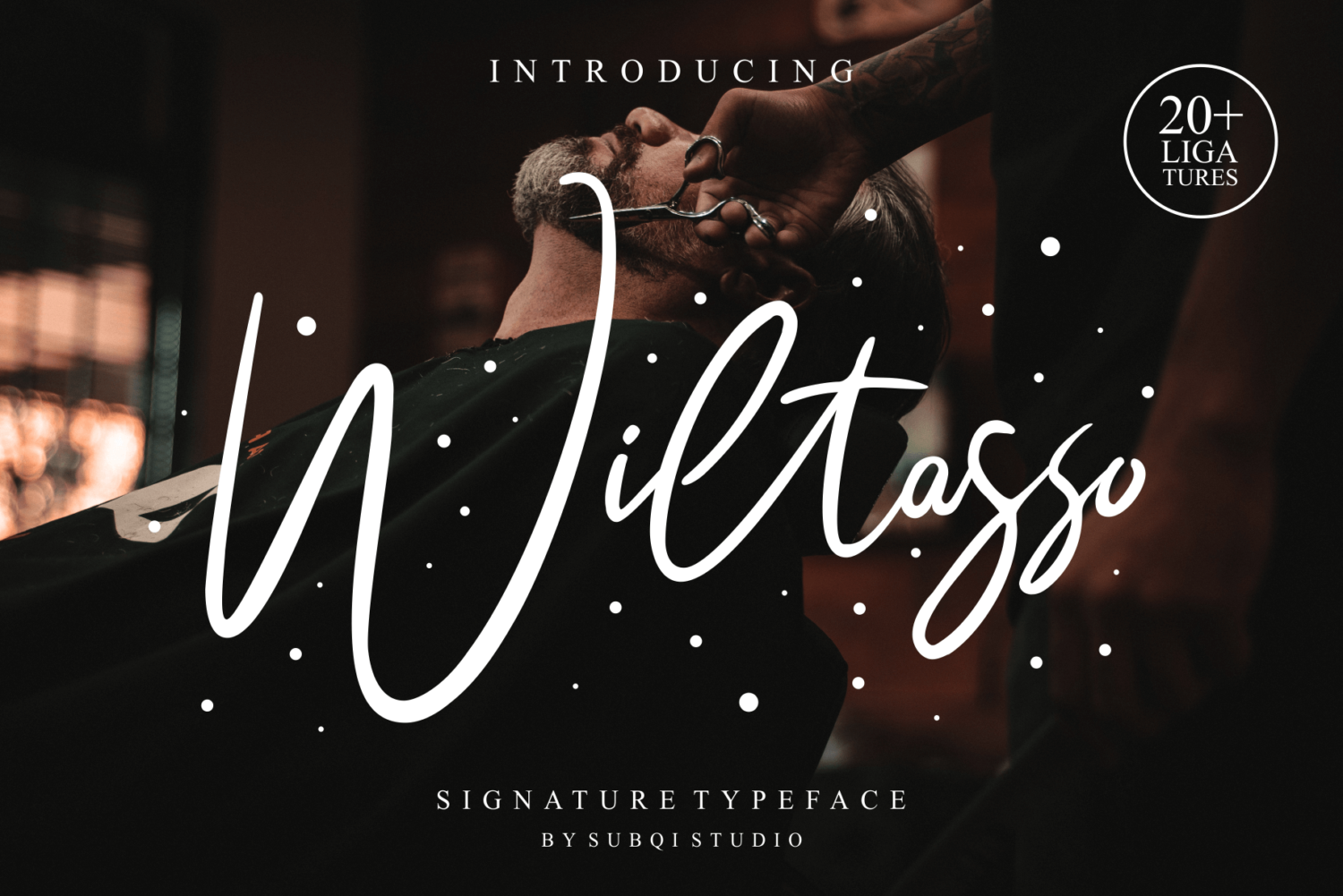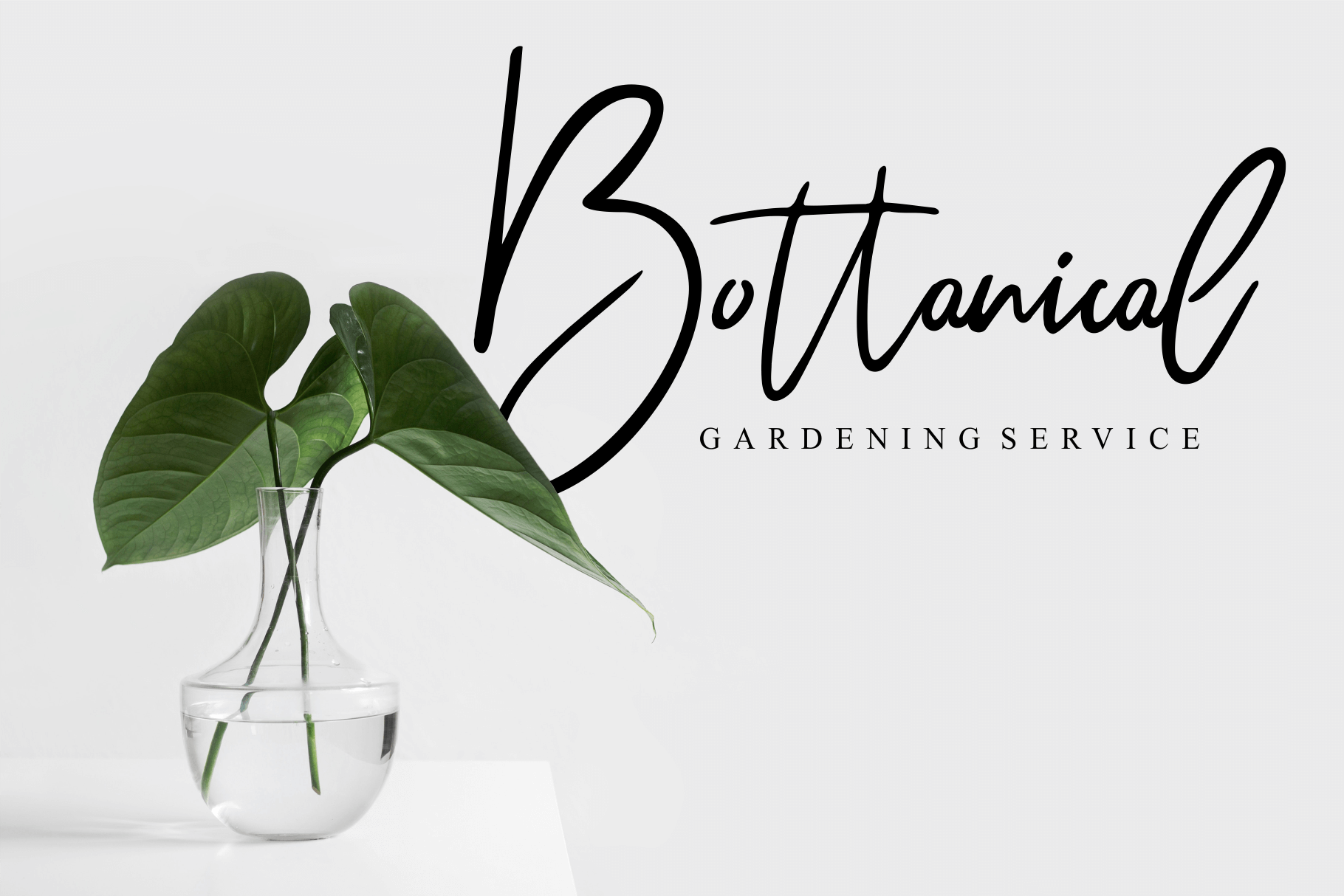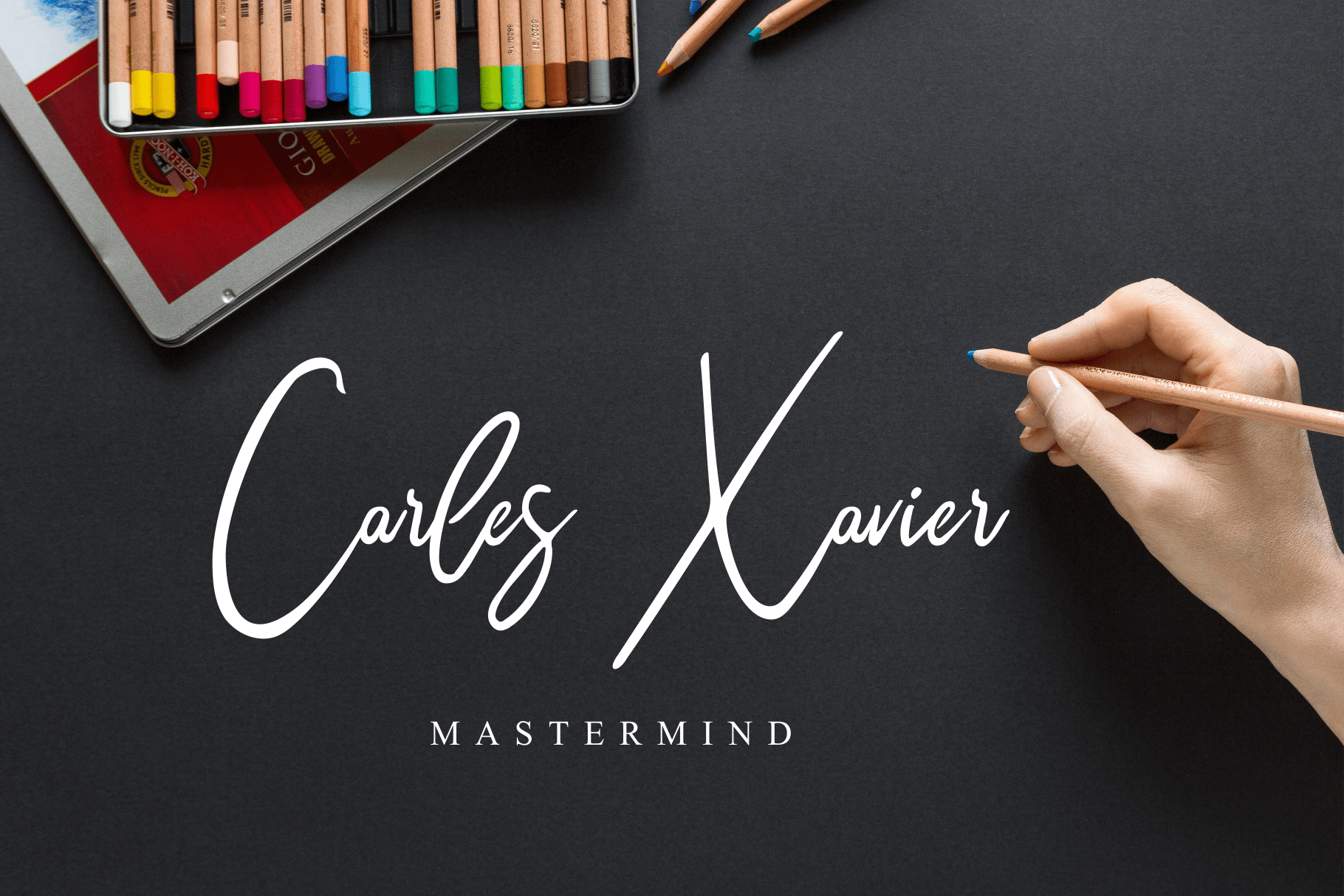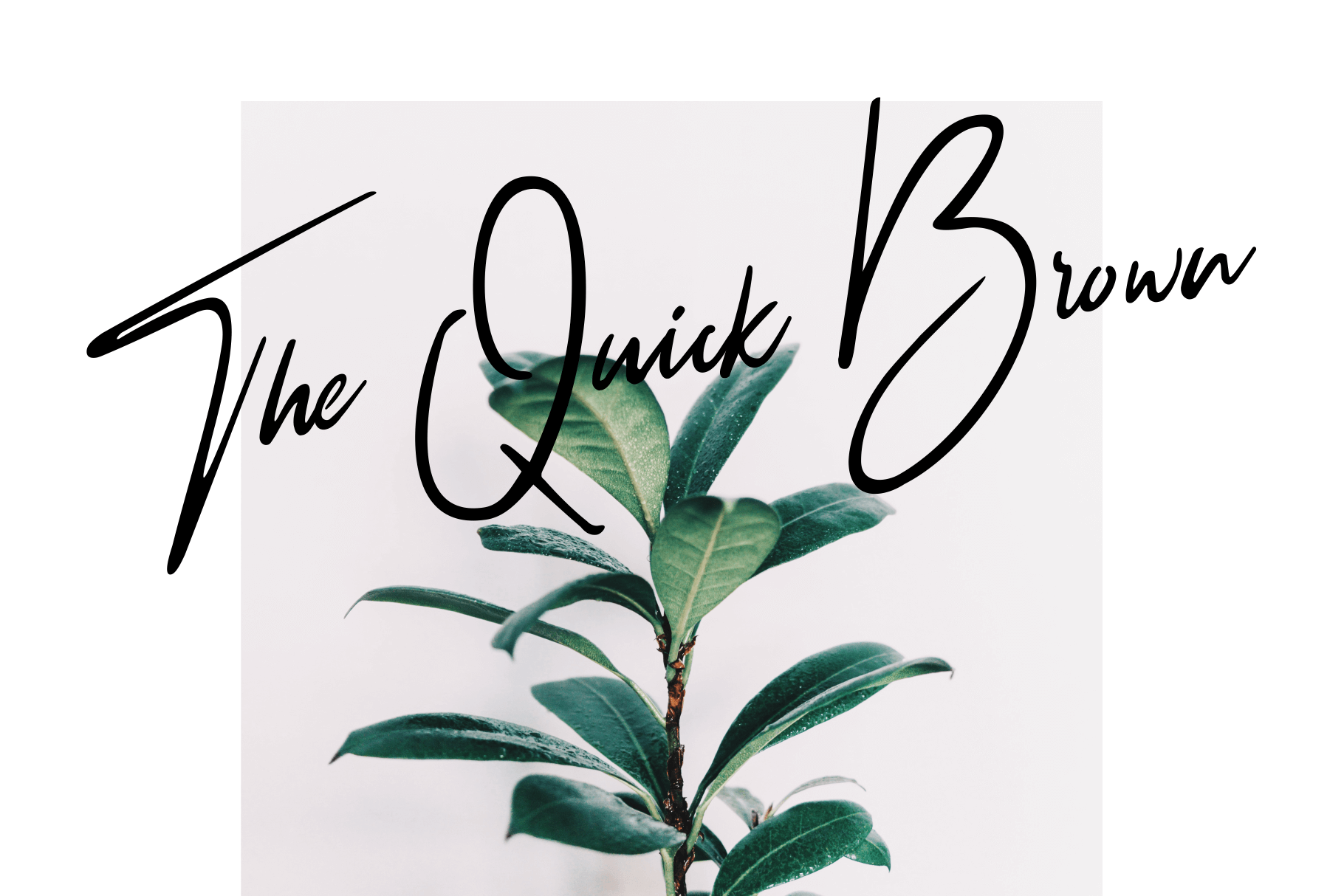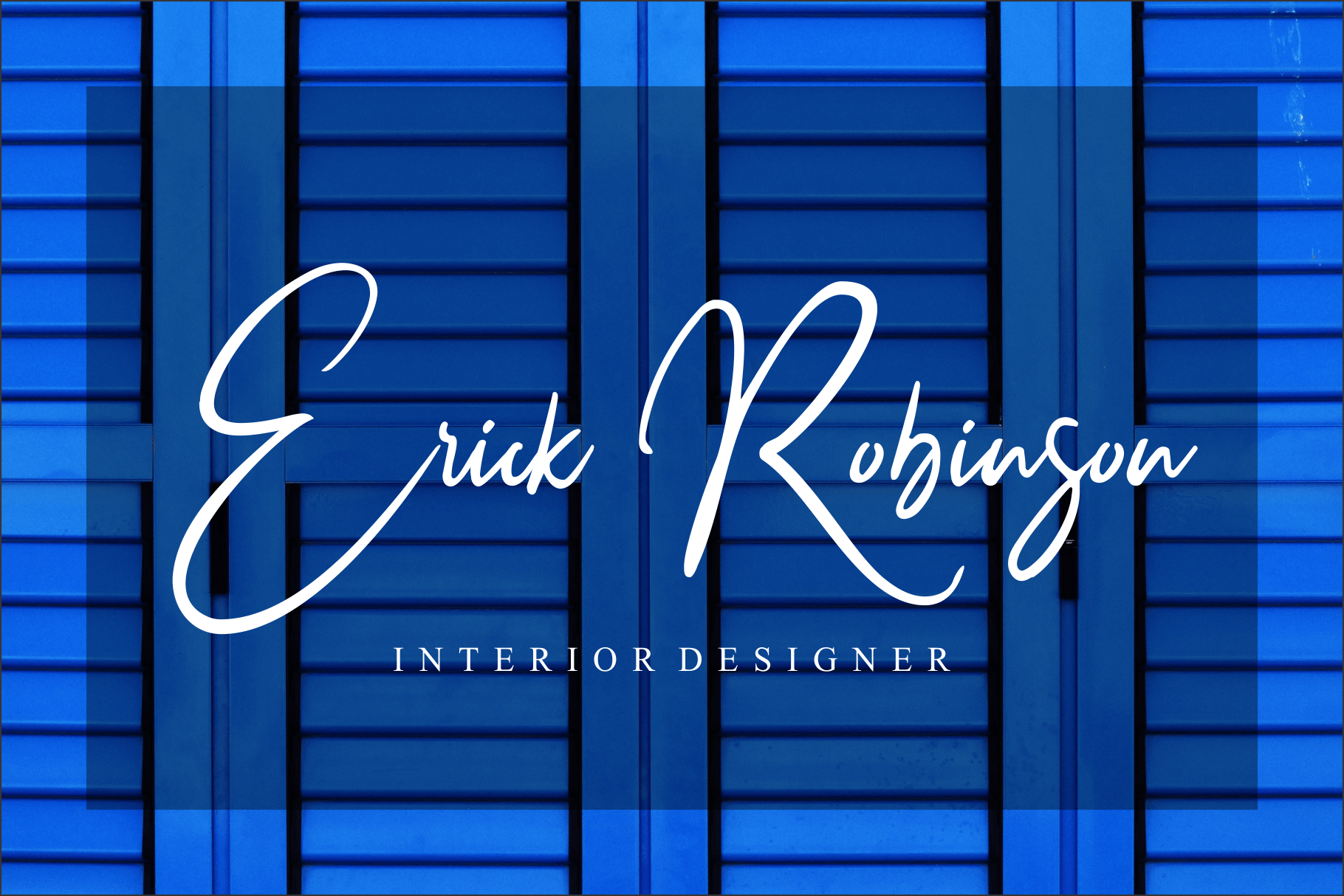
Wiltasso Free Font
Wiltasso Free Font is a signature typeface. This font is made pure by handmade signature then with our signature organic look. This font also contains more than 20 ligatures. It’ll be very suitable for your design needs. This free typeface was designed by a talented Subqi Std. If you like it don’t forget to check out the full version.